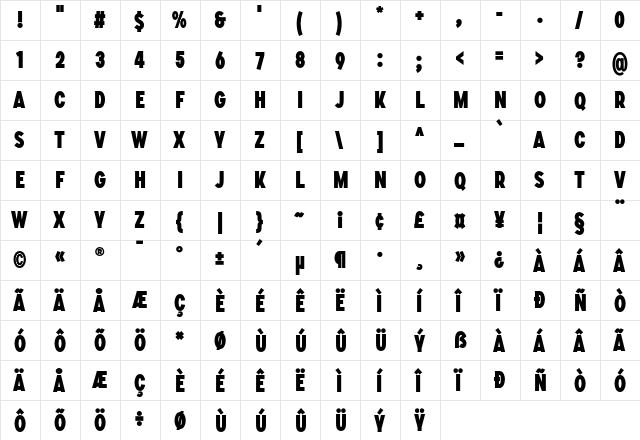
SONGER Condensed Heavy
| Foundry | Alexander Pravdin |
| Designer | Alexander Pravdin |
Design Context for SONGER Condensed Typeface
SONGER Condensed takes a measured approach to typography — its balanced proportions and neutral character make it a reliable workhorse for both digital and print work. The condensed width makes it efficient for tight spaces without sacrificing legibility.